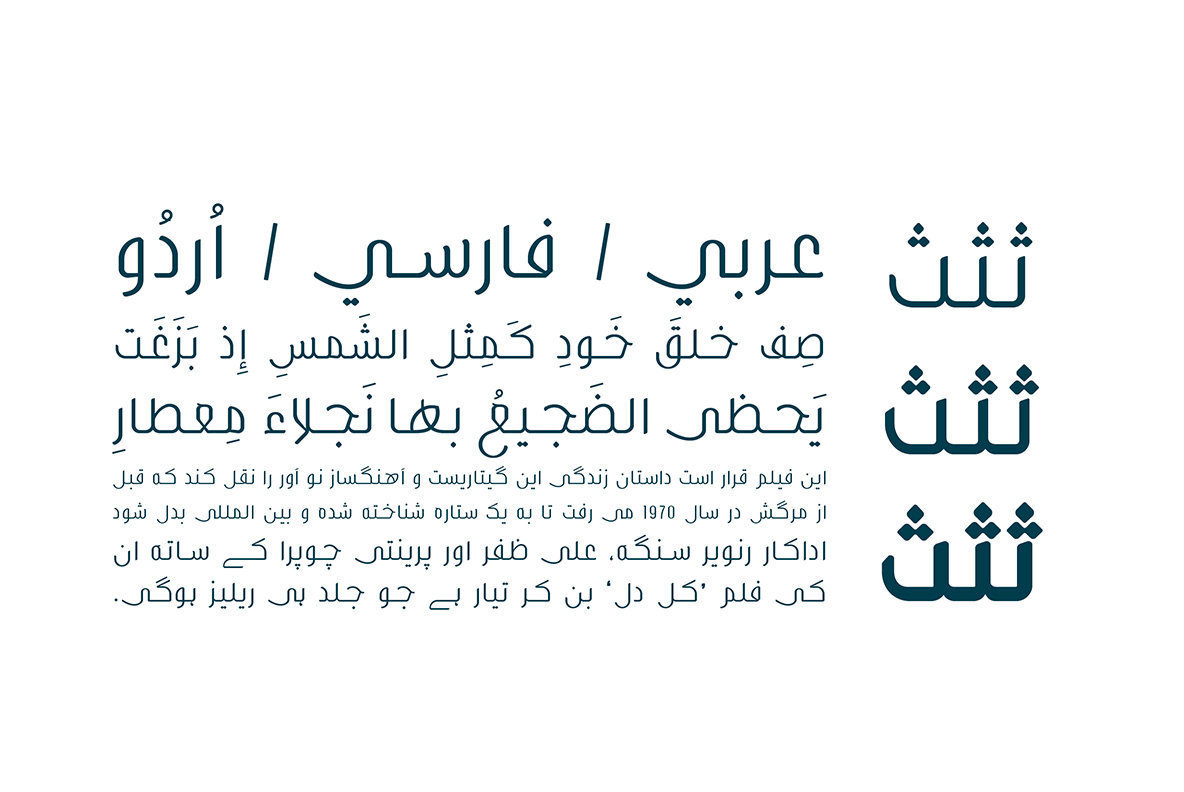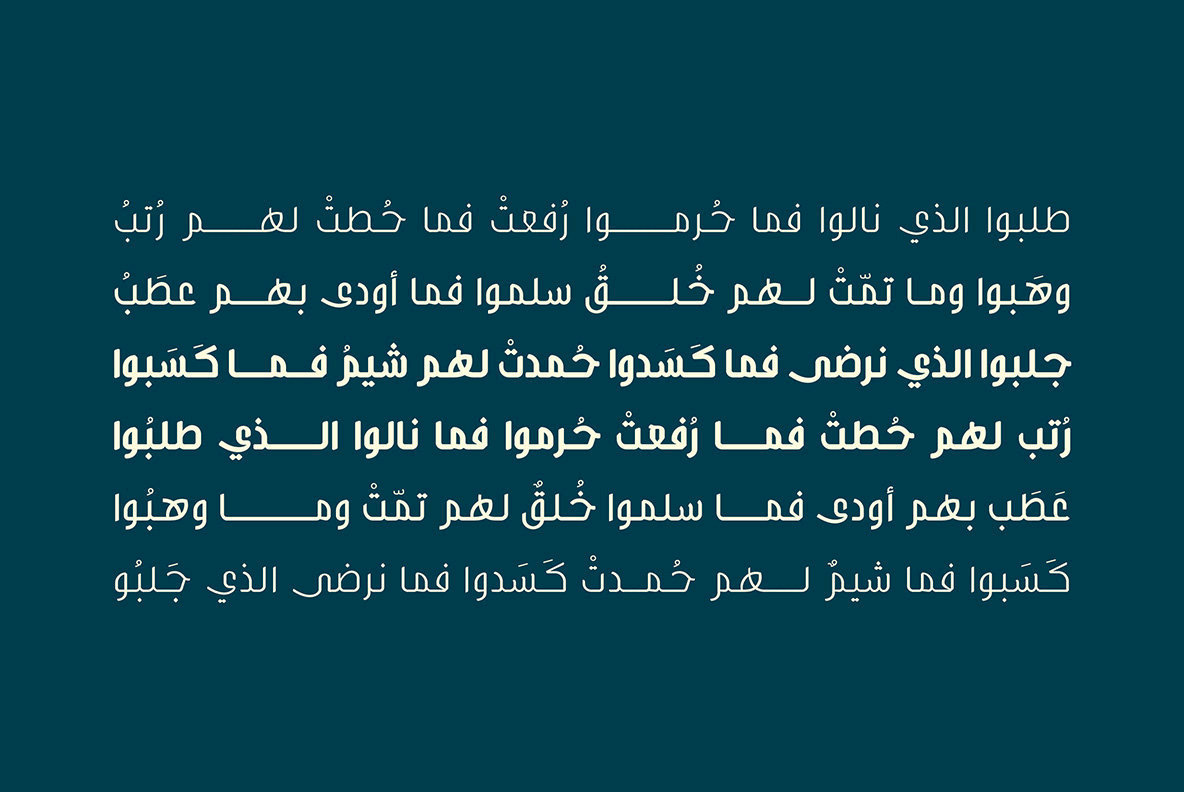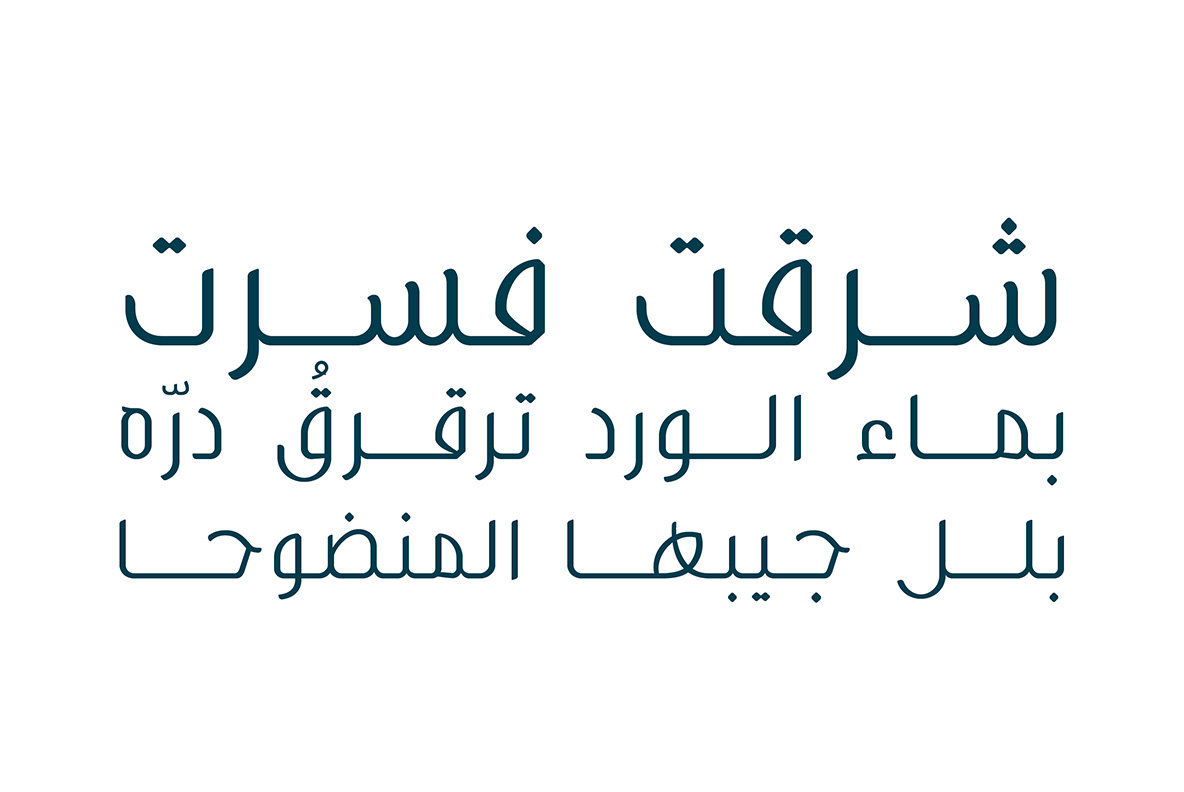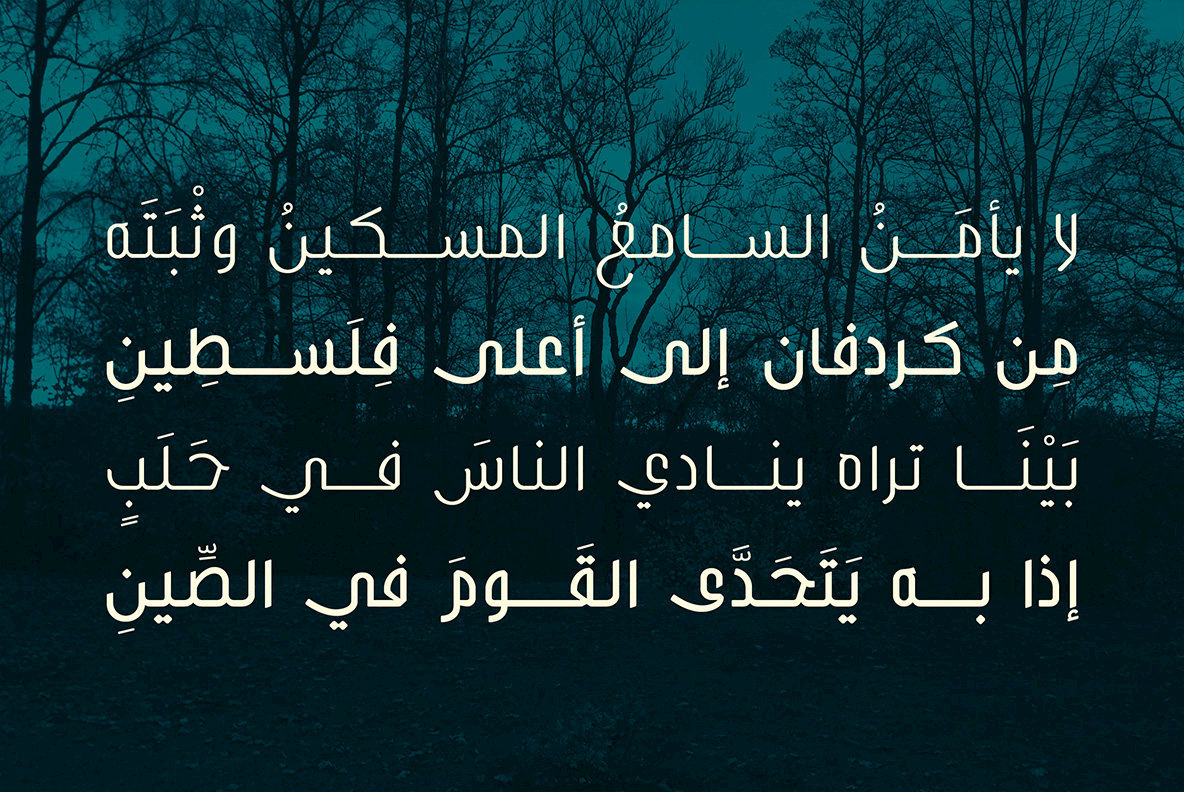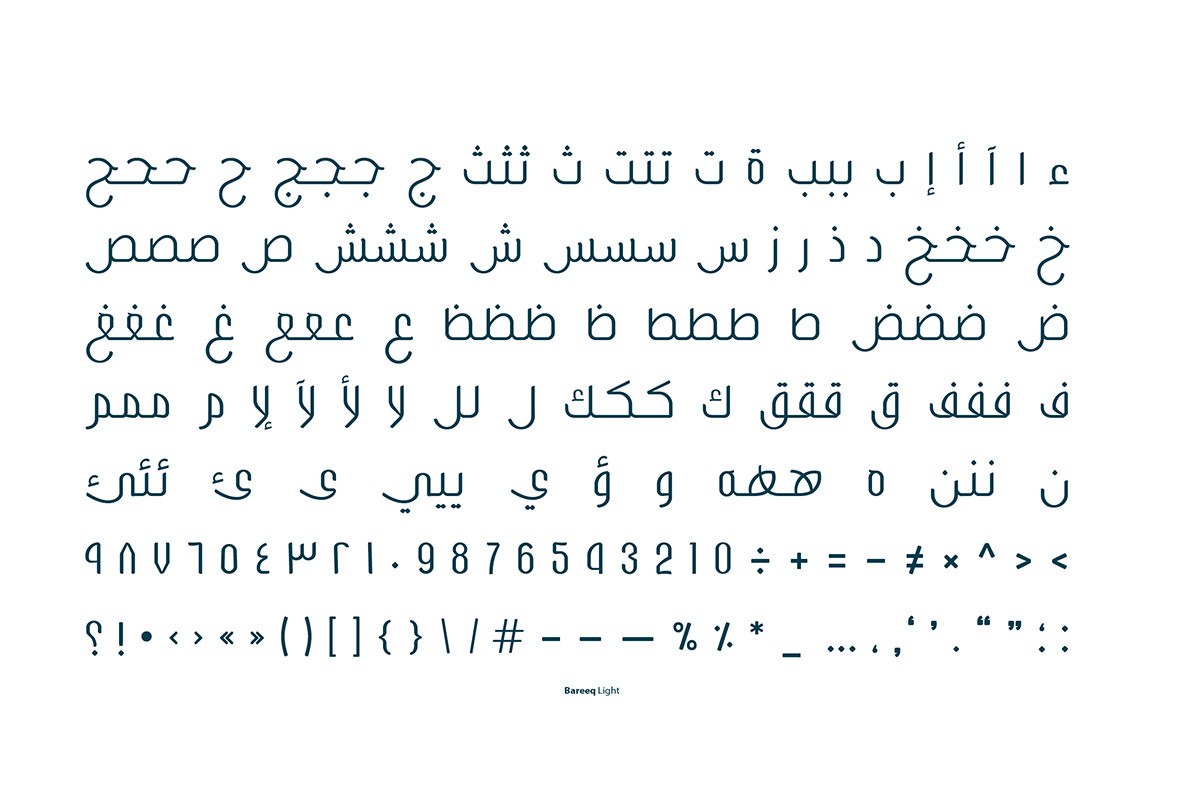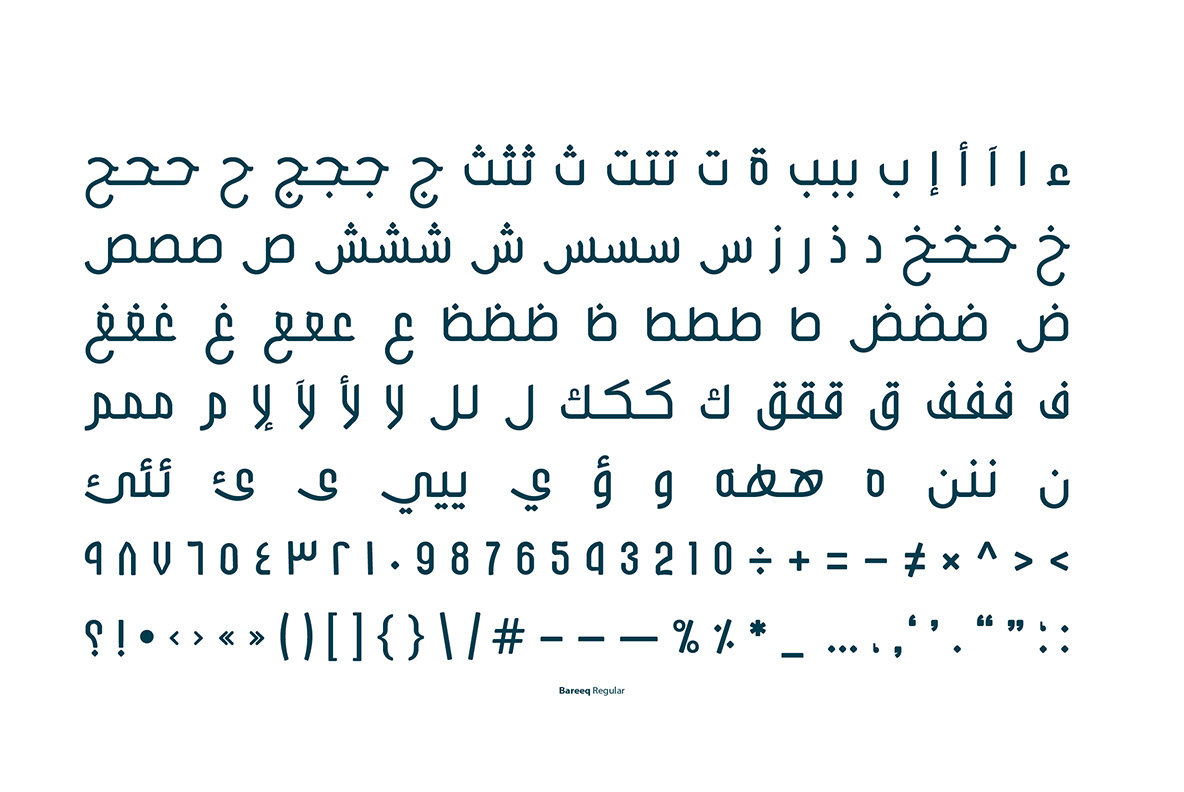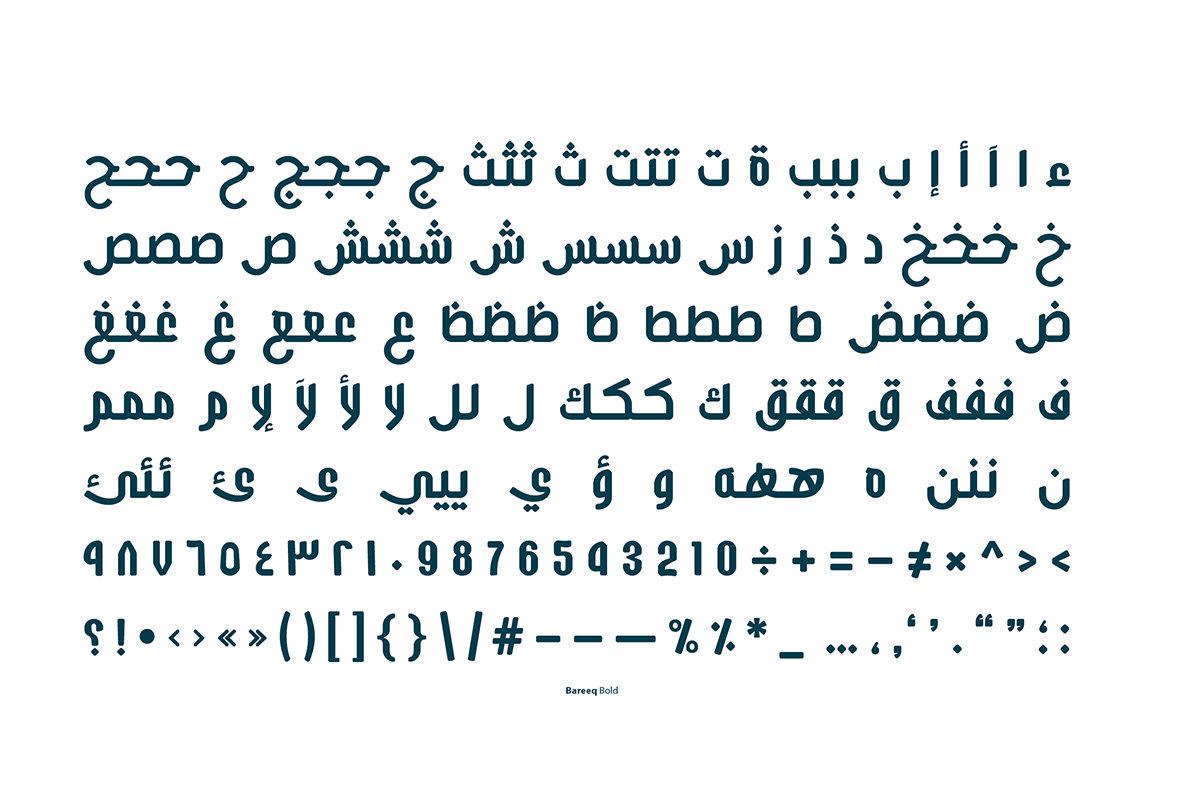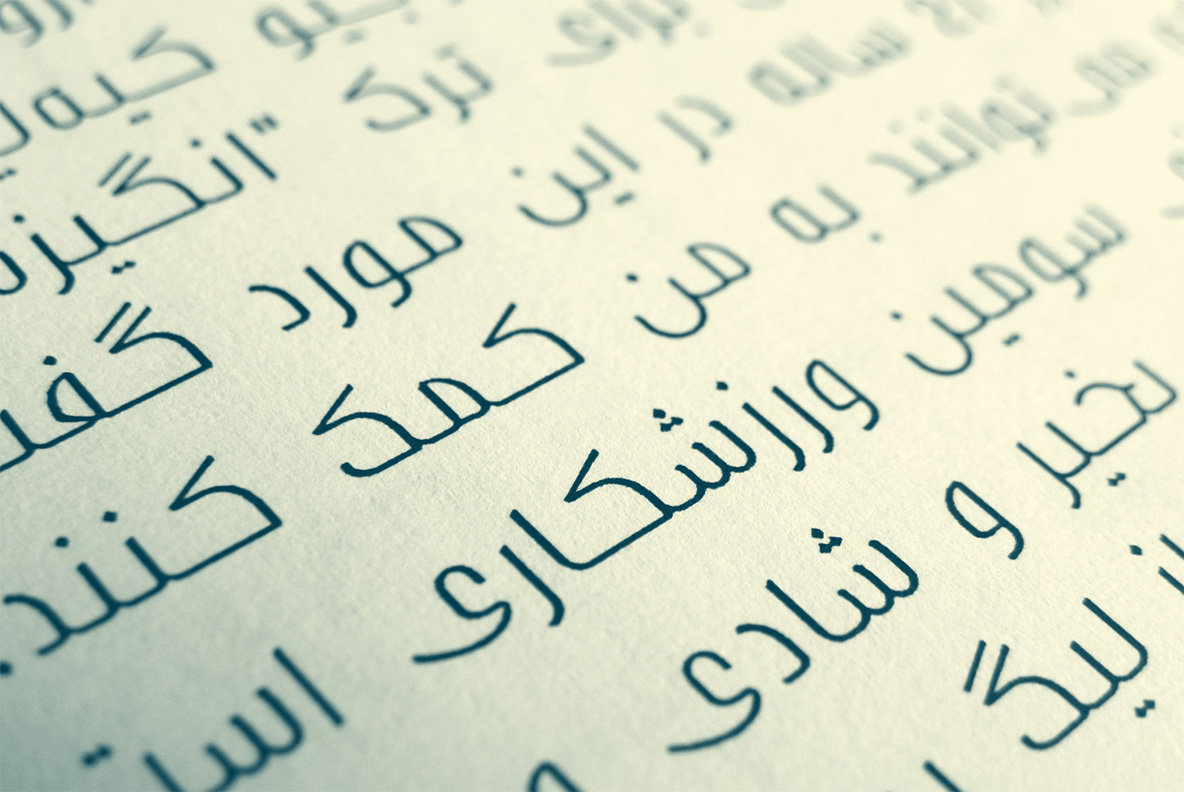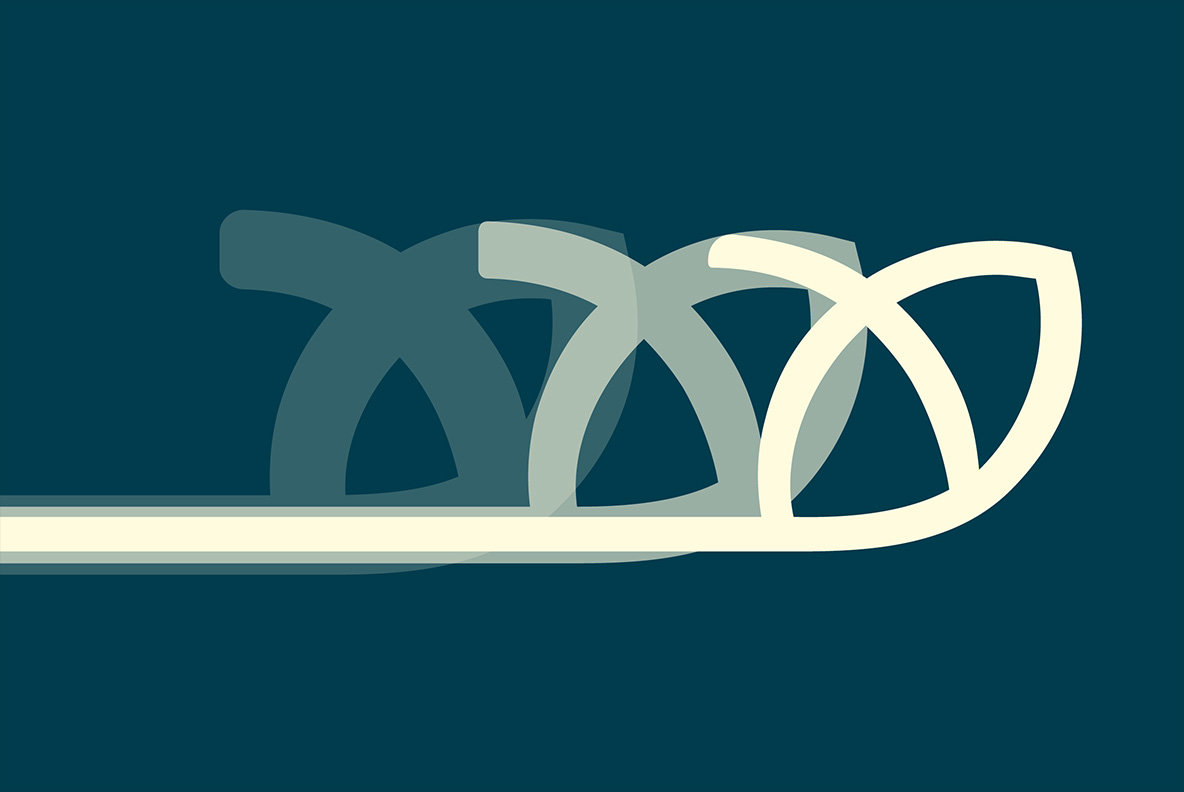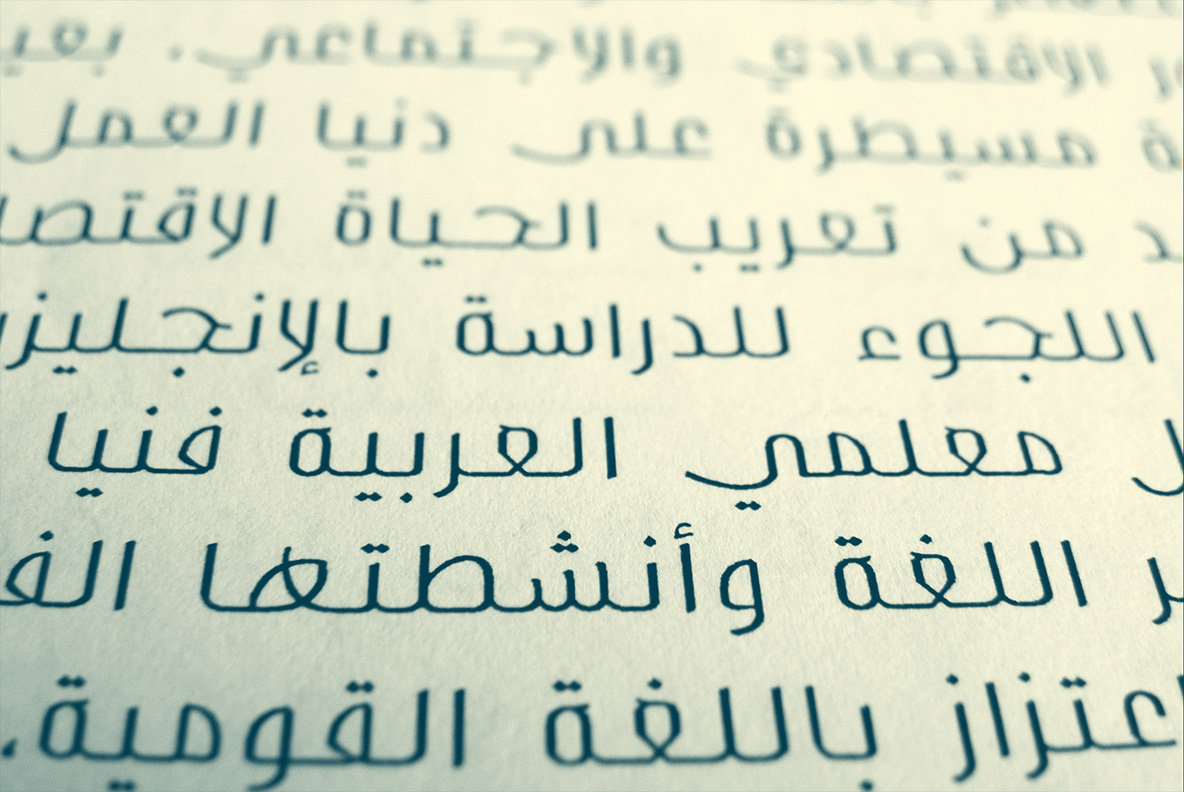
Bareeq Font
The word Bareeq is the Arabic for Glitter. Bareeq is an Arabic typeface that fuses the traditional Arabic script with modern design. It suits various range of design applications including web and print. Bareeq typeface consists of three weights; Light, Regular, and Bold.